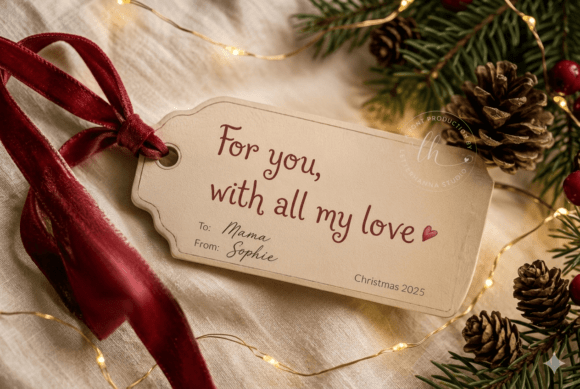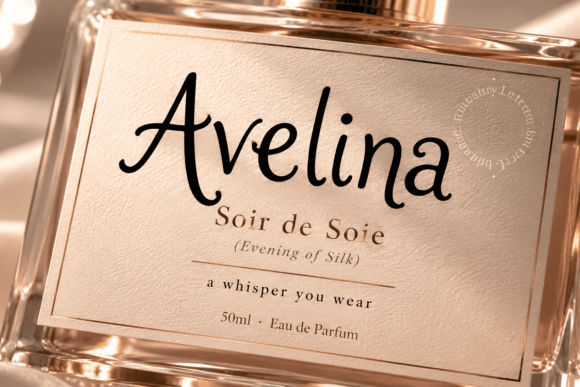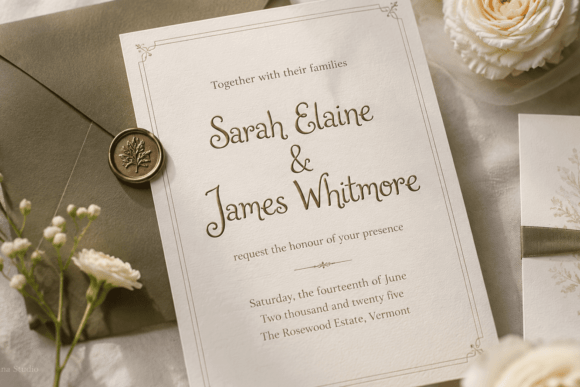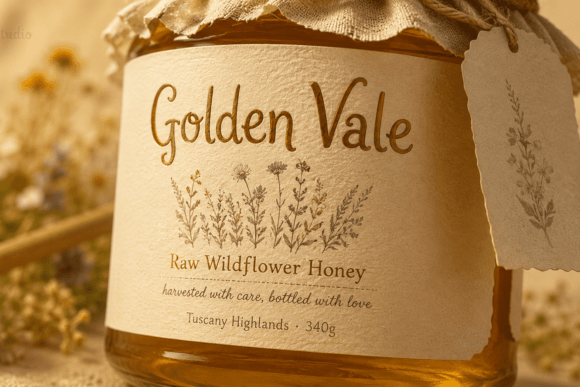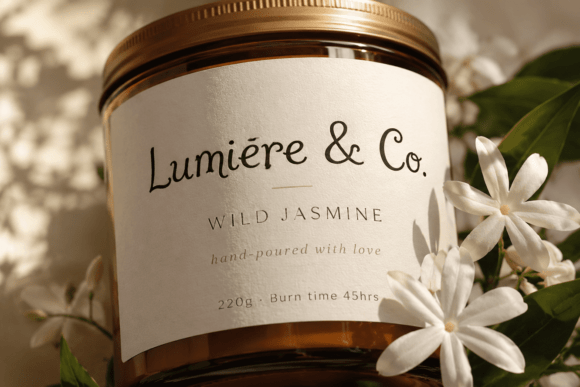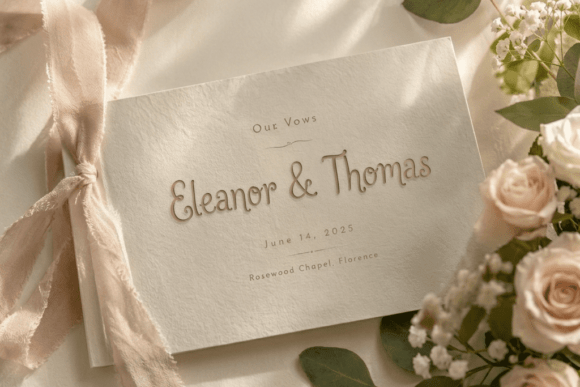
Introduction to Junelys Ridge Font
You’ve spent hours on the details — the florals, the color palette, the mood.
But there’s one element that ties every piece of design together before the client even reads a single word: the font That’s exactly why we created Junelys Ridge — a script font that moves like ink on paper, swirls like a signature, and whispers elegance in every curve.
Key Features of Junelys Ridge Font
Why Choose Junelys Ridge Font?
Junelys Ridge Font offers exceptional quality and versatility, making it a valuable addition to your design toolkit. Whether you’re creating for personal projects or commercial use, Junelys Ridge Font delivers professional results.